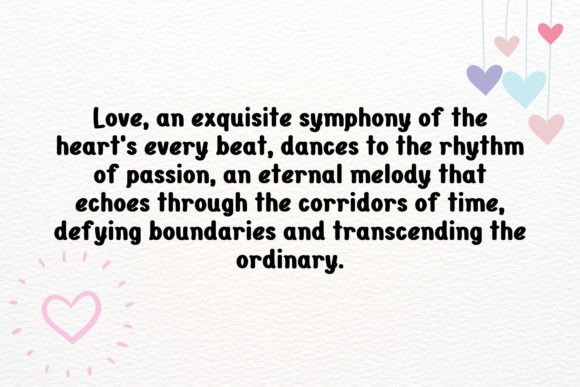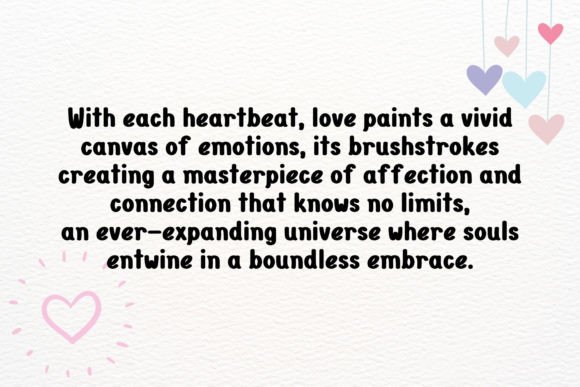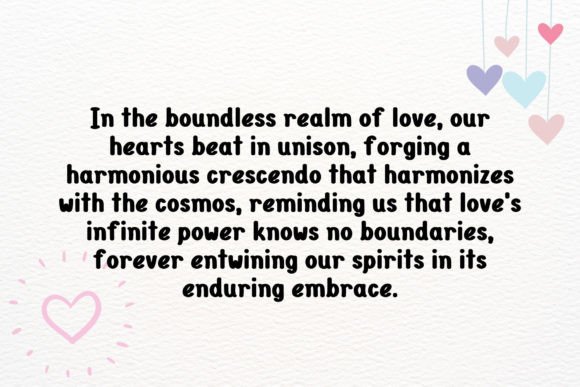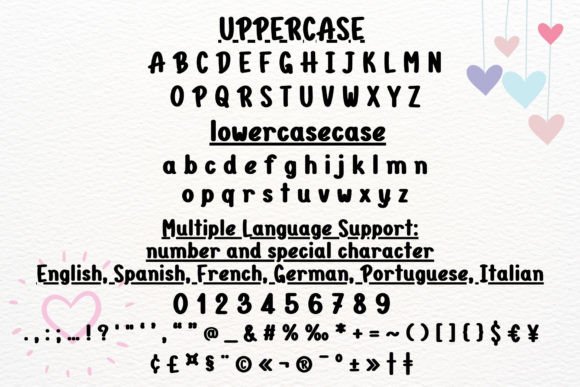
Introduction to Heart Beats Font
Unlock the power of “Heart Beats” – a delightful handwritten font that captures the essence of beauty, grace, and cuteness in every stroke.
This font is designed to infuse your projects with a touch of whimsy and warmth, making it perfect for a wide range of creative endeavors .
Key Features of Heart Beats Font
Why Choose Heart Beats Font?
Heart Beats Font offers exceptional quality and versatility, making it a valuable addition to your design toolkit. Whether you’re creating for personal projects or commercial use, Heart Beats Font delivers professional results.